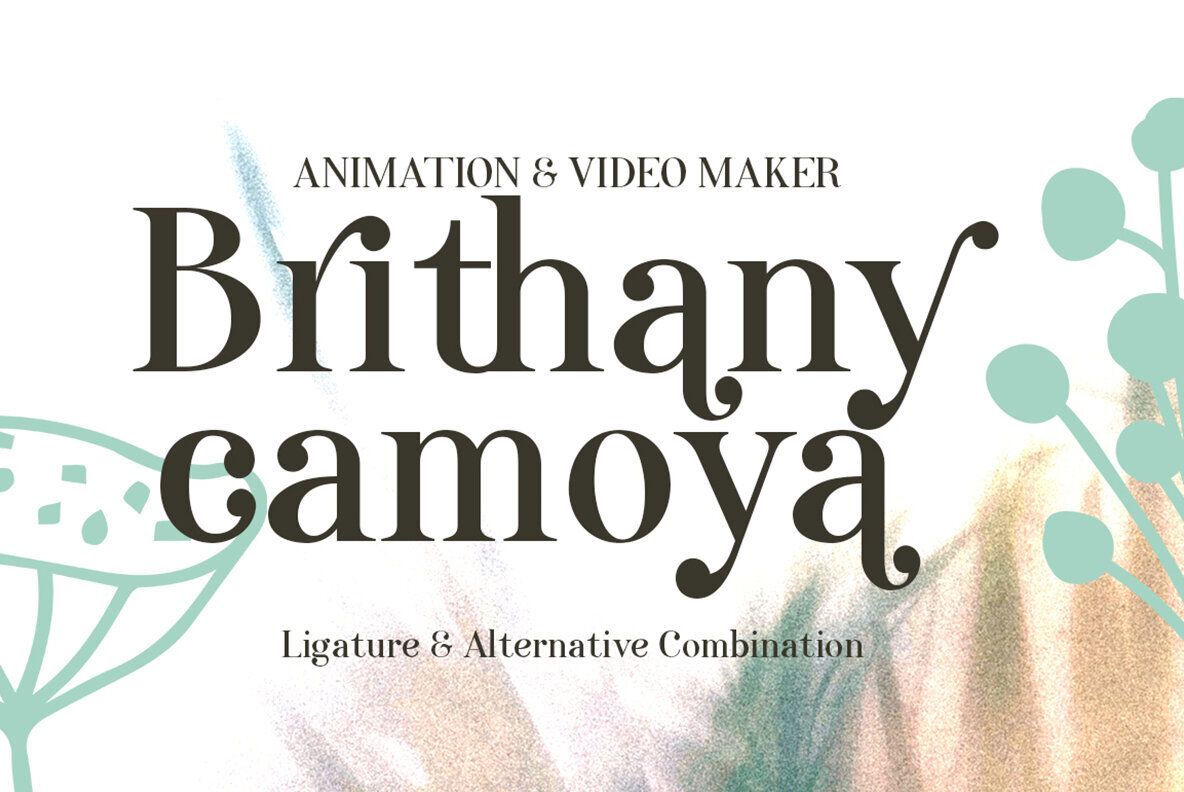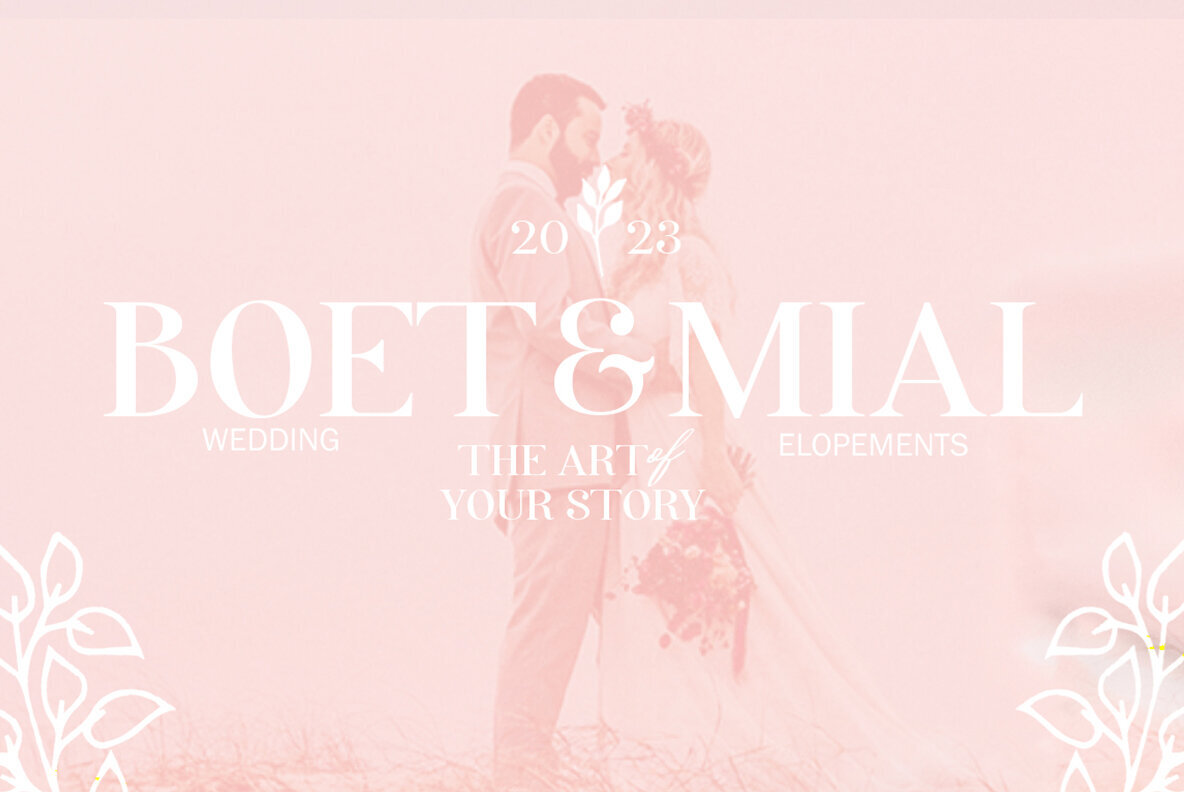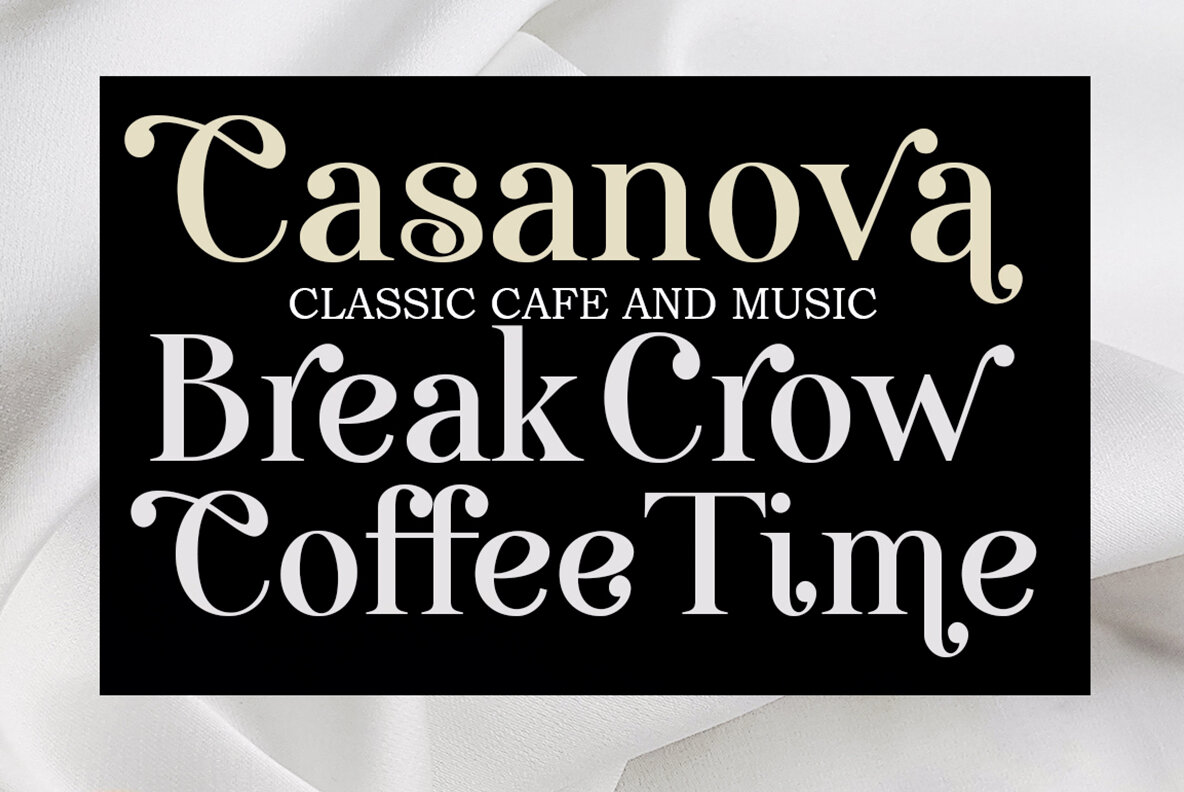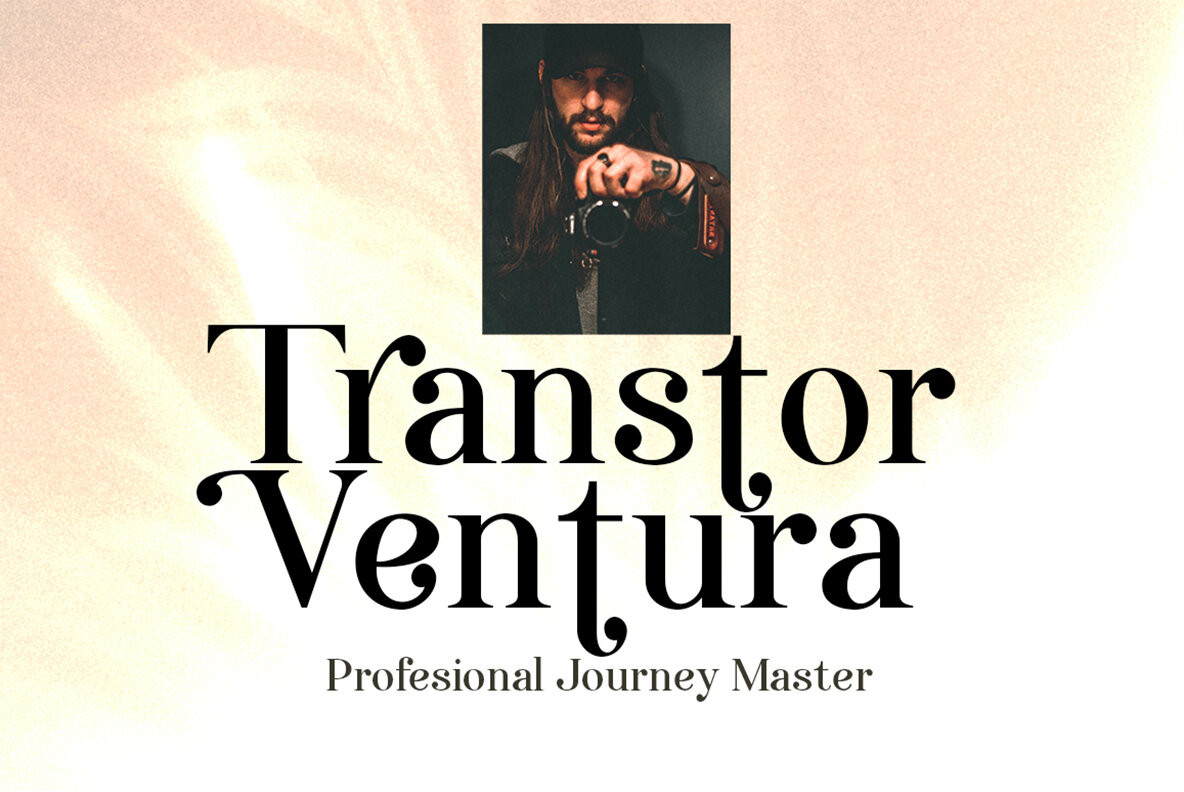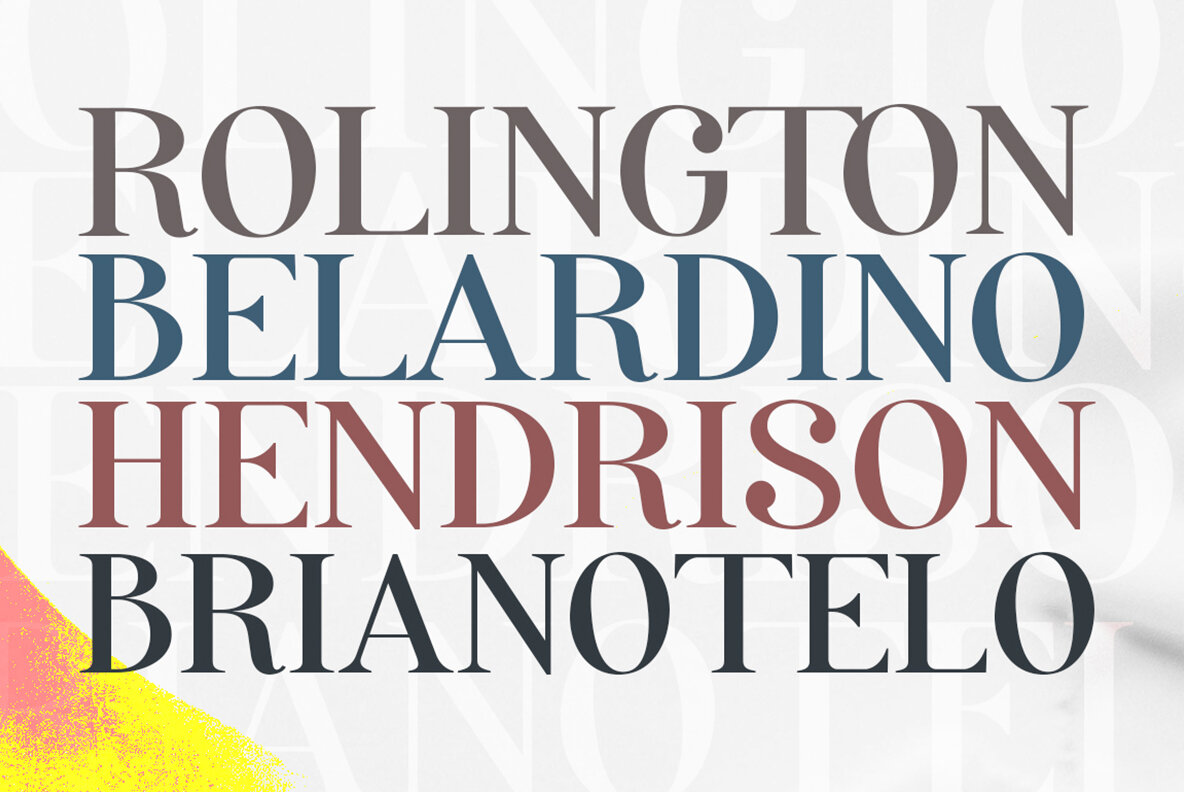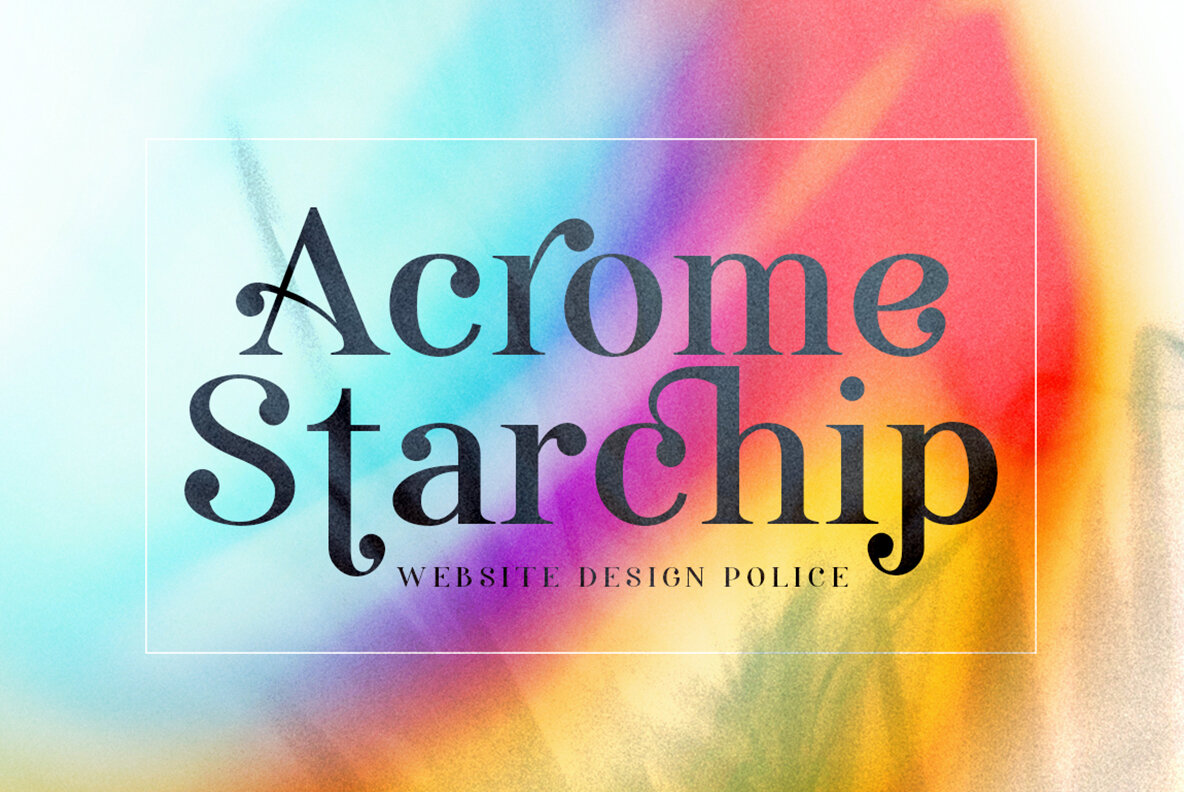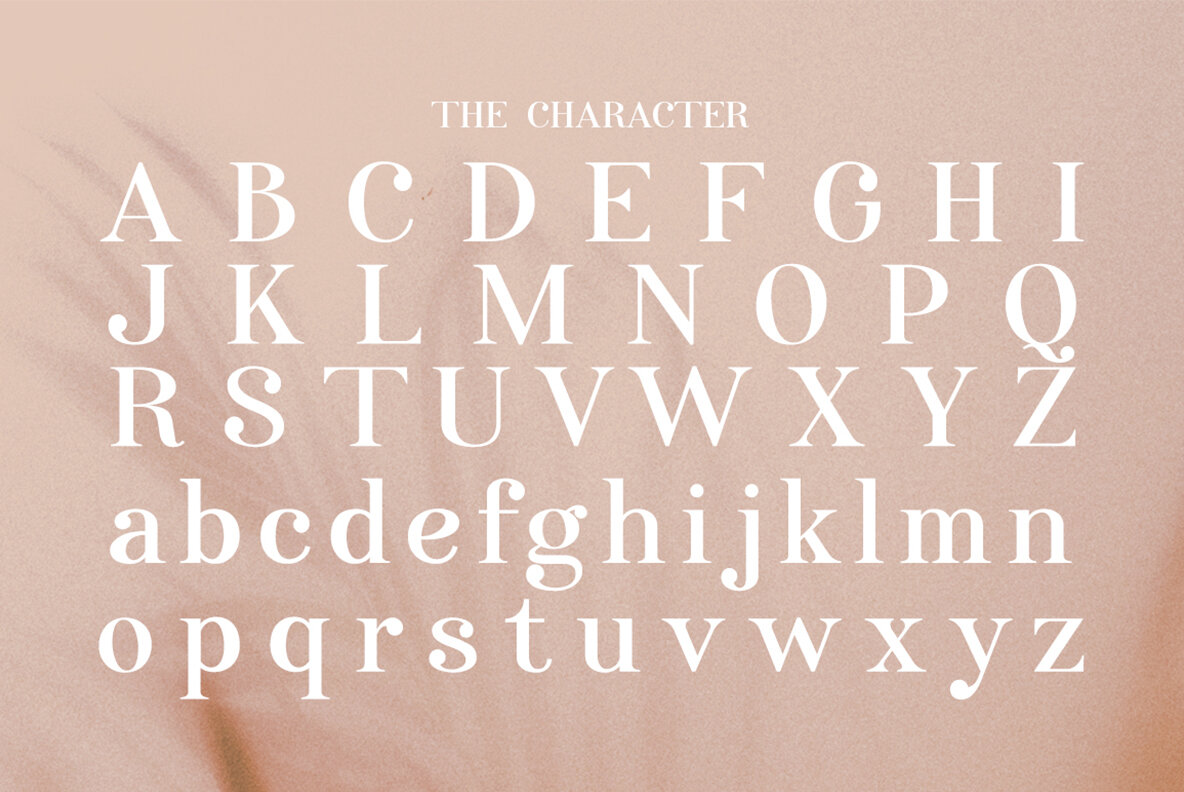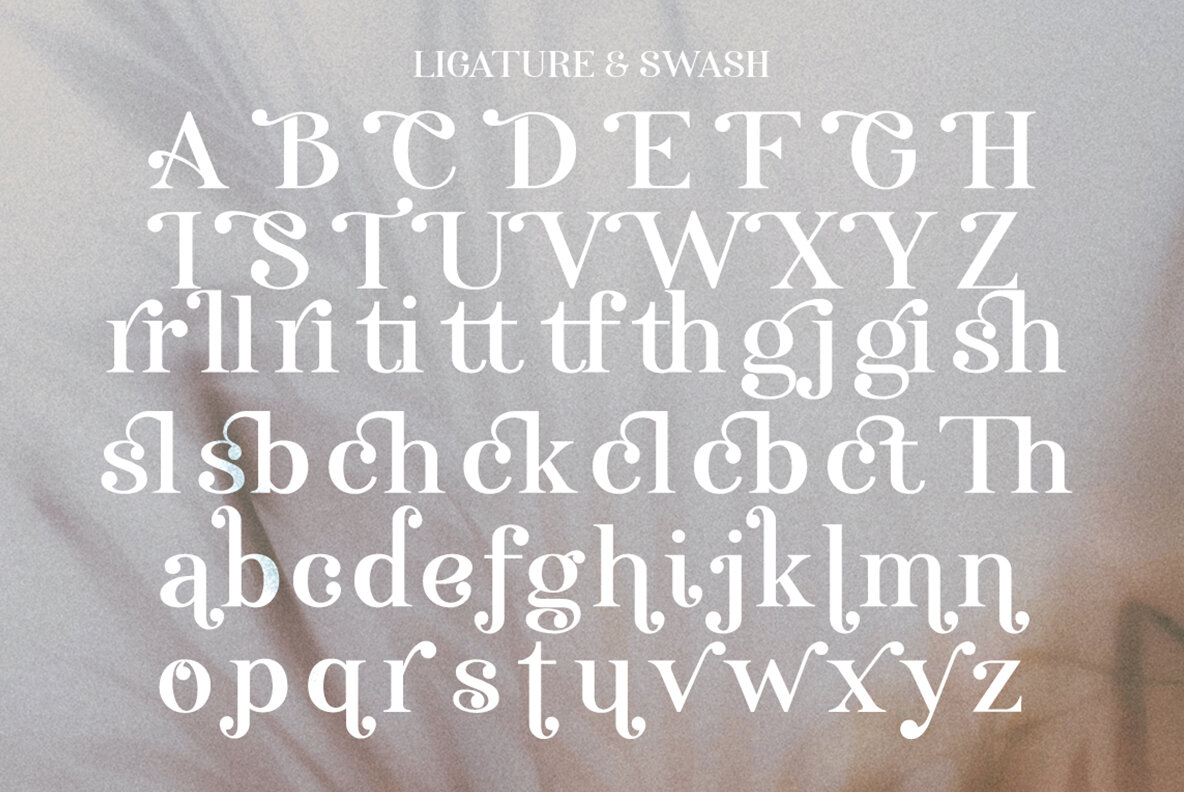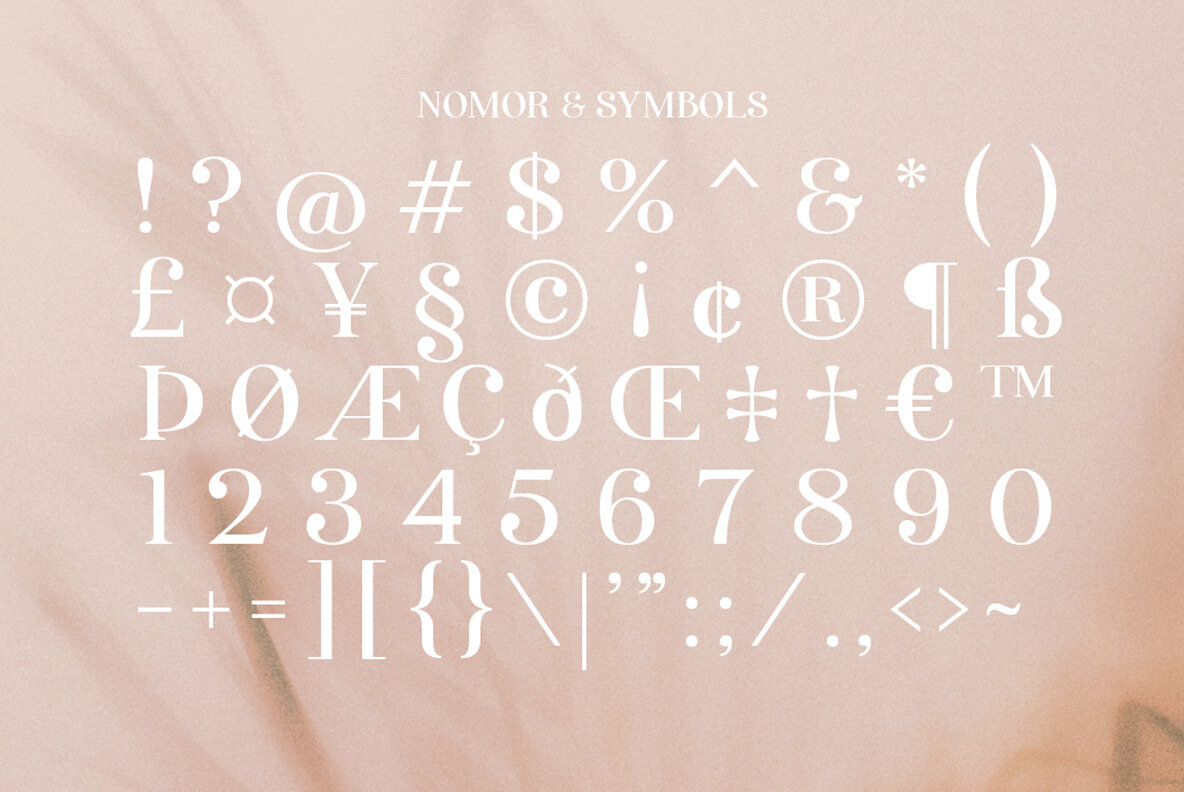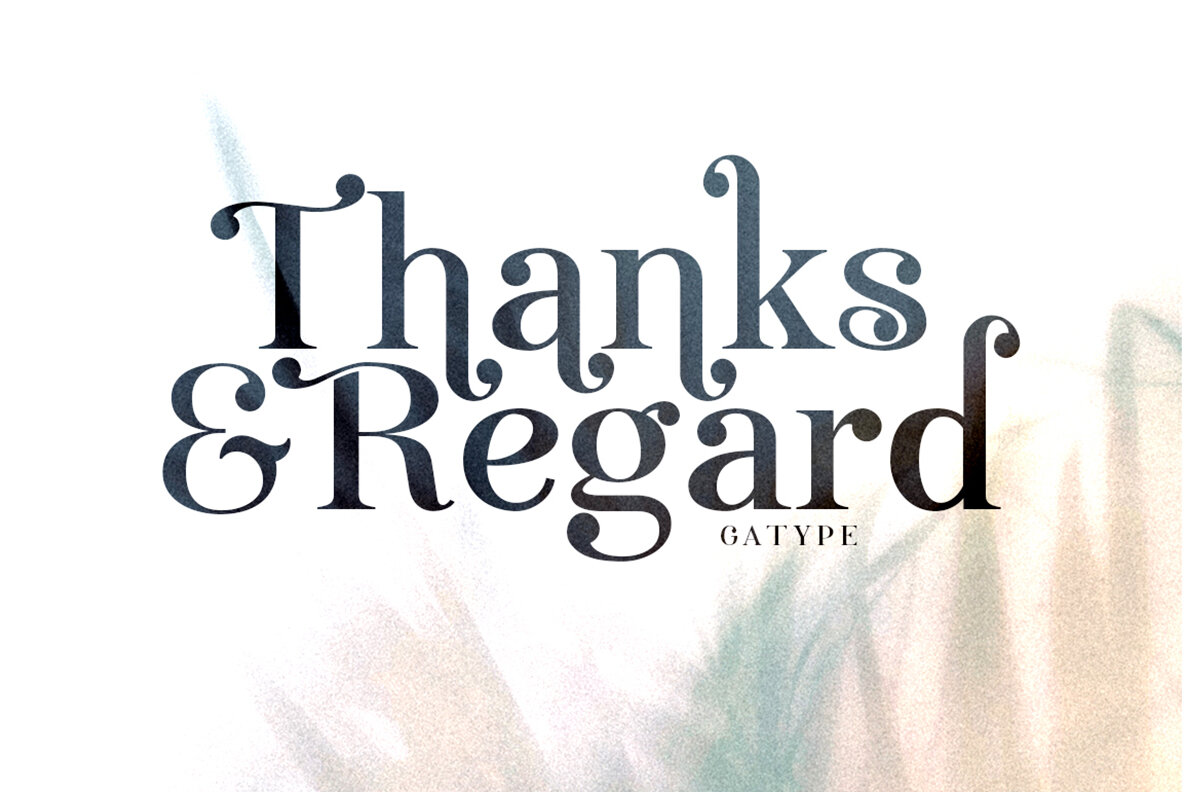
Anggie Display Font
Anggie Display Regular
Anggie Display is an elegant script infused with a creative flair, inspired by the refined aesthetics of contemporary serif displays. Its thick, balanced, and varied strokes make it an ideal choice for luxury and beauty-focused projects. This script font is perfect for a variety of uses. Whether you're working on logotypes, branding projects, wedding invitations, romantic cards, or alcohol labels, Anggie Display provides the sophistication you need. It is also ideal for packaging, name spelling, and more. If you have any questions, don’t hesitate to contact me. Thank you.Anggie Display: Elegant Script for Luxurious Designs